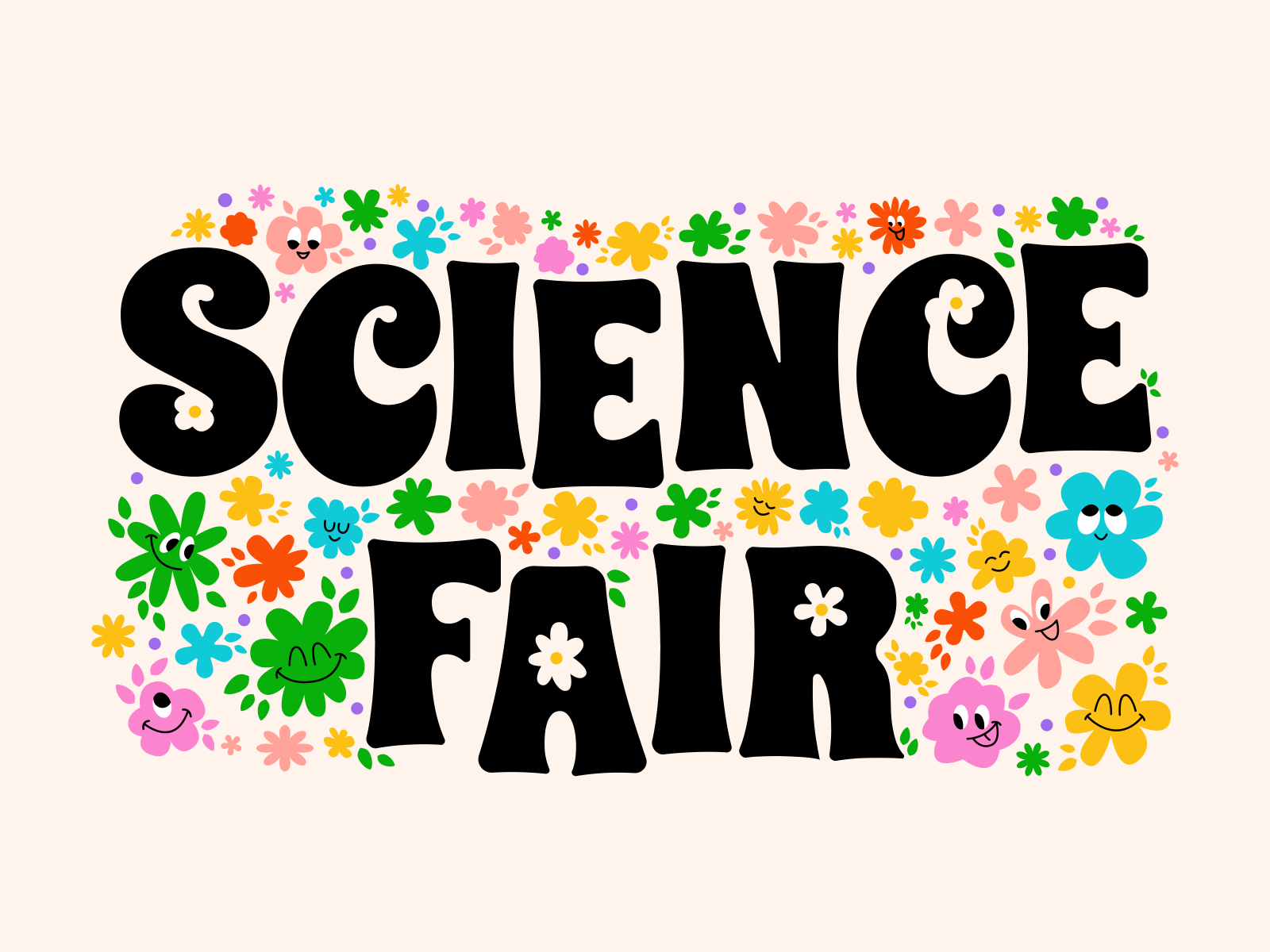
Display Board Fonts For Science Fair . Bold fonts may be difficult to read; explore fonts in science fair pack. Use subheadings to emphasize your key points. select attractive fonts and colors when designing the text on your board. Emphasize your most important points. 16pt text for main text and 32pt and 24pt font for. A subtitle in a large font might. a science fair project display board presents several challenges. for example, the board’s title should have the largest font, the section titles should be the next largest, and the sections themselves should be typed in the smallest font on the board. All fonts should be easily readable. The first is making sure your text and graphics are. science fair project boards must use fonts large enough for easily read.
16pt text for main text and 32pt and 24pt font for. A subtitle in a large font might. a science fair project display board presents several challenges. for example, the board’s title should have the largest font, the section titles should be the next largest, and the sections themselves should be typed in the smallest font on the board. science fair project boards must use fonts large enough for easily read. Emphasize your most important points. select attractive fonts and colors when designing the text on your board. All fonts should be easily readable. Bold fonts may be difficult to read; The first is making sure your text and graphics are.
Display Board Fonts For Science Fair The first is making sure your text and graphics are. explore fonts in science fair pack. science fair project boards must use fonts large enough for easily read. The first is making sure your text and graphics are. Bold fonts may be difficult to read; Use subheadings to emphasize your key points. select attractive fonts and colors when designing the text on your board. Emphasize your most important points. a science fair project display board presents several challenges. 16pt text for main text and 32pt and 24pt font for. for example, the board’s title should have the largest font, the section titles should be the next largest, and the sections themselves should be typed in the smallest font on the board. All fonts should be easily readable. A subtitle in a large font might.
Ultimate Guide for A+ Science Fair Project Science Fair Board Layout Display Board Fonts For Science Fair select attractive fonts and colors when designing the text on your board. The first is making sure your text and graphics are. Use subheadings to emphasize your key points. science fair project boards must use fonts large enough for easily read. a science fair project display board presents several challenges. Emphasize your most important points. A subtitle. Display Board Fonts For Science Fair.
Science Fair Display Guide Iconic Displays Display Board Fonts For Science Fair Emphasize your most important points. The first is making sure your text and graphics are. Use subheadings to emphasize your key points. 16pt text for main text and 32pt and 24pt font for. All fonts should be easily readable. for example, the board’s title should have the largest font, the section titles should be the next largest, and the. Display Board Fonts For Science Fair.
10 Awesome Science Fair Poster Board Ideas 2024 vrogue.co Display Board Fonts For Science Fair The first is making sure your text and graphics are. explore fonts in science fair pack. 16pt text for main text and 32pt and 24pt font for. a science fair project display board presents several challenges. A subtitle in a large font might. Emphasize your most important points. science fair project boards must use fonts large enough. Display Board Fonts For Science Fair.
Science Fair Helpline Your Project Display Board Fonts For Science Fair Bold fonts may be difficult to read; A subtitle in a large font might. Use subheadings to emphasize your key points. science fair project boards must use fonts large enough for easily read. 16pt text for main text and 32pt and 24pt font for. for example, the board’s title should have the largest font, the section titles should. Display Board Fonts For Science Fair.
Science Fair Display Guide Iconic Displays Display Board Fonts For Science Fair science fair project boards must use fonts large enough for easily read. select attractive fonts and colors when designing the text on your board. All fonts should be easily readable. Emphasize your most important points. Bold fonts may be difficult to read; A subtitle in a large font might. for example, the board’s title should have the. Display Board Fonts For Science Fair.
Ultimate Guide for A+ Science Fair Project Science Fair Board Layout Display Board Fonts For Science Fair Use subheadings to emphasize your key points. a science fair project display board presents several challenges. science fair project boards must use fonts large enough for easily read. A subtitle in a large font might. for example, the board’s title should have the largest font, the section titles should be the next largest, and the sections themselves. Display Board Fonts For Science Fair.
Ultimate Guide for A+ Science Fair Project Science Fair Board Layout Display Board Fonts For Science Fair All fonts should be easily readable. Use subheadings to emphasize your key points. The first is making sure your text and graphics are. explore fonts in science fair pack. 16pt text for main text and 32pt and 24pt font for. Bold fonts may be difficult to read; a science fair project display board presents several challenges. science. Display Board Fonts For Science Fair.
Science Fair Project Board Template Display Board Fonts For Science Fair select attractive fonts and colors when designing the text on your board. a science fair project display board presents several challenges. science fair project boards must use fonts large enough for easily read. 16pt text for main text and 32pt and 24pt font for. explore fonts in science fair pack. Bold fonts may be difficult to. Display Board Fonts For Science Fair.